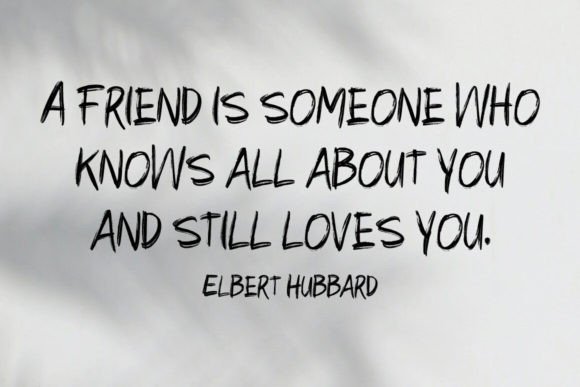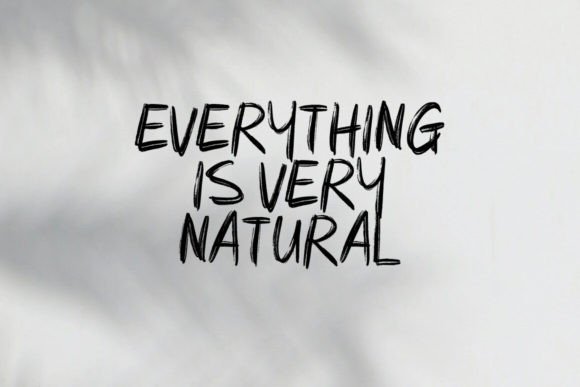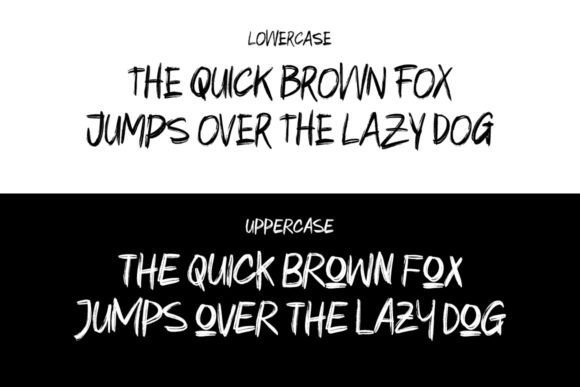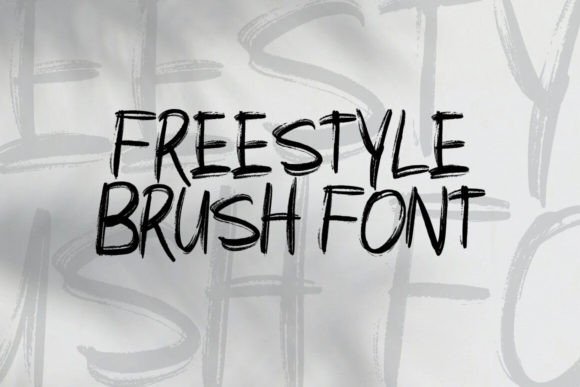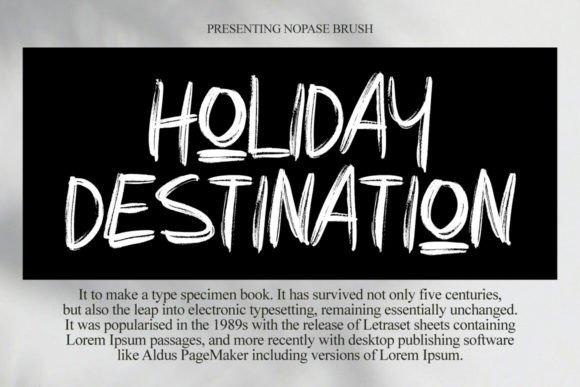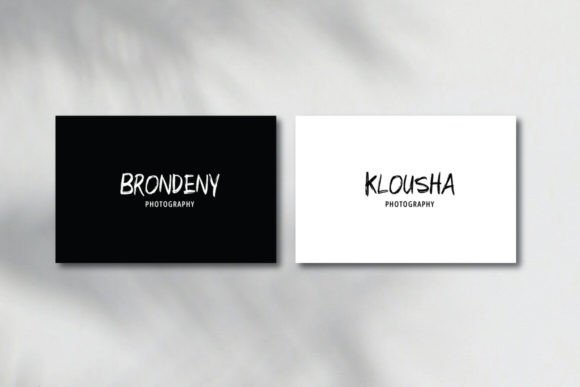
Introduction to Nopase Brush Font
Nopase Brush is a cool and timeless handwritten font.
Key Features of Nopase Brush Font
Why Choose Nopase Brush Font?
Nopase Brush Font offers exceptional quality and versatility, making it a valuable addition to your design toolkit. Whether you’re creating for personal projects or commercial use, Nopase Brush Font delivers professional results.